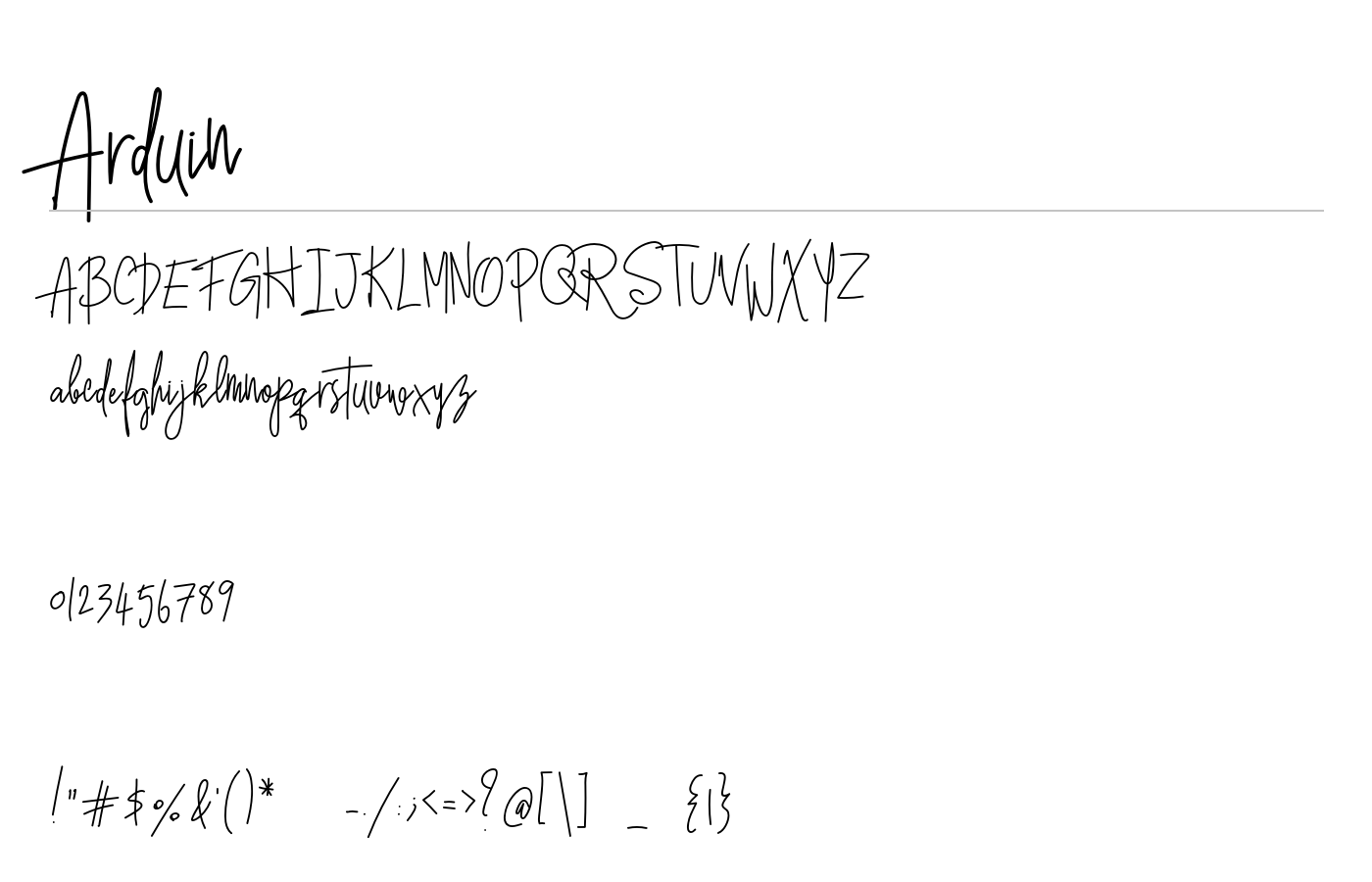
Arduin is a thin, handwritten script font with a playful and casual feel, featuring tall, narrow letterforms and loosely connected strokes that give it an airy and personal touch. Its light weight and delicate lines make it ideal for creative projects seeking an informal, friendly vibe, such as invitations, branding, and artistic headlines. This font’s unique charm lies in its natural, hand-drawn style that adds personality without overwhelming the design.
Arduin Font
About Arduin Font
| Font family | Arduin Font |
| Languages supported | Latin, Symbols, Thai |
| Designer | KANDA EUATHAM |